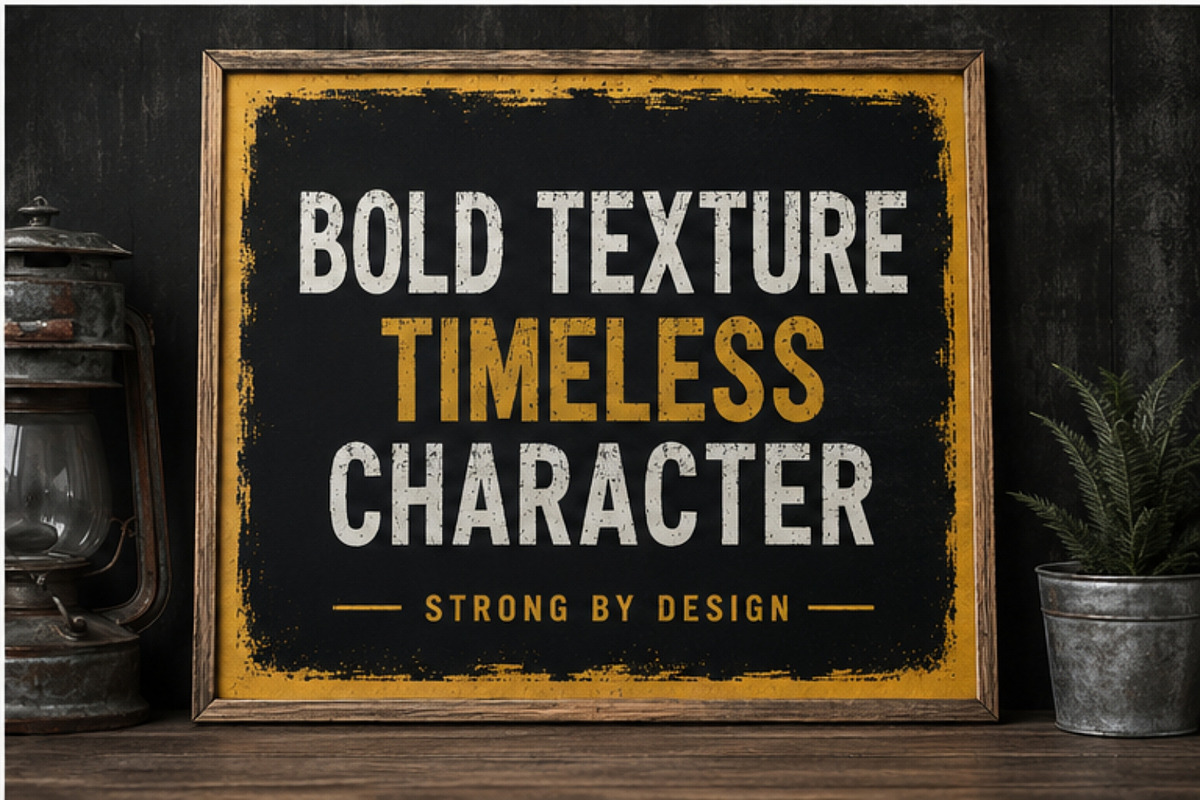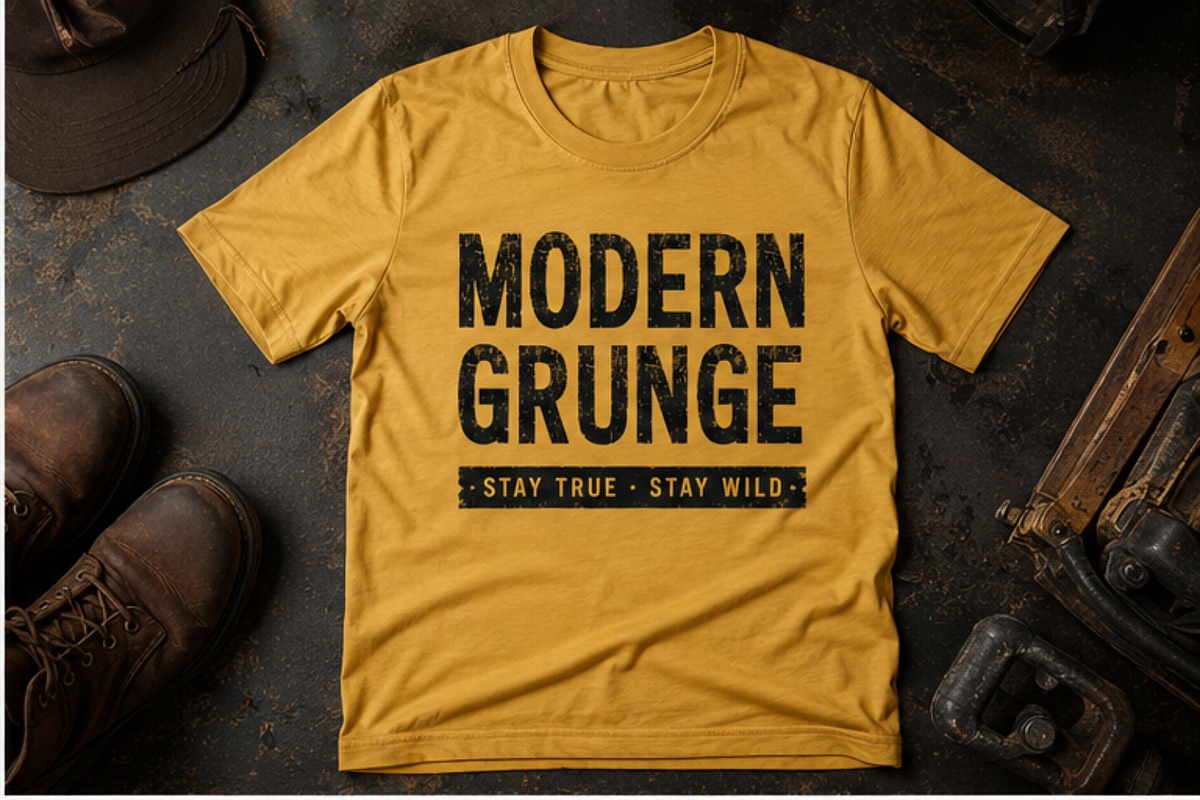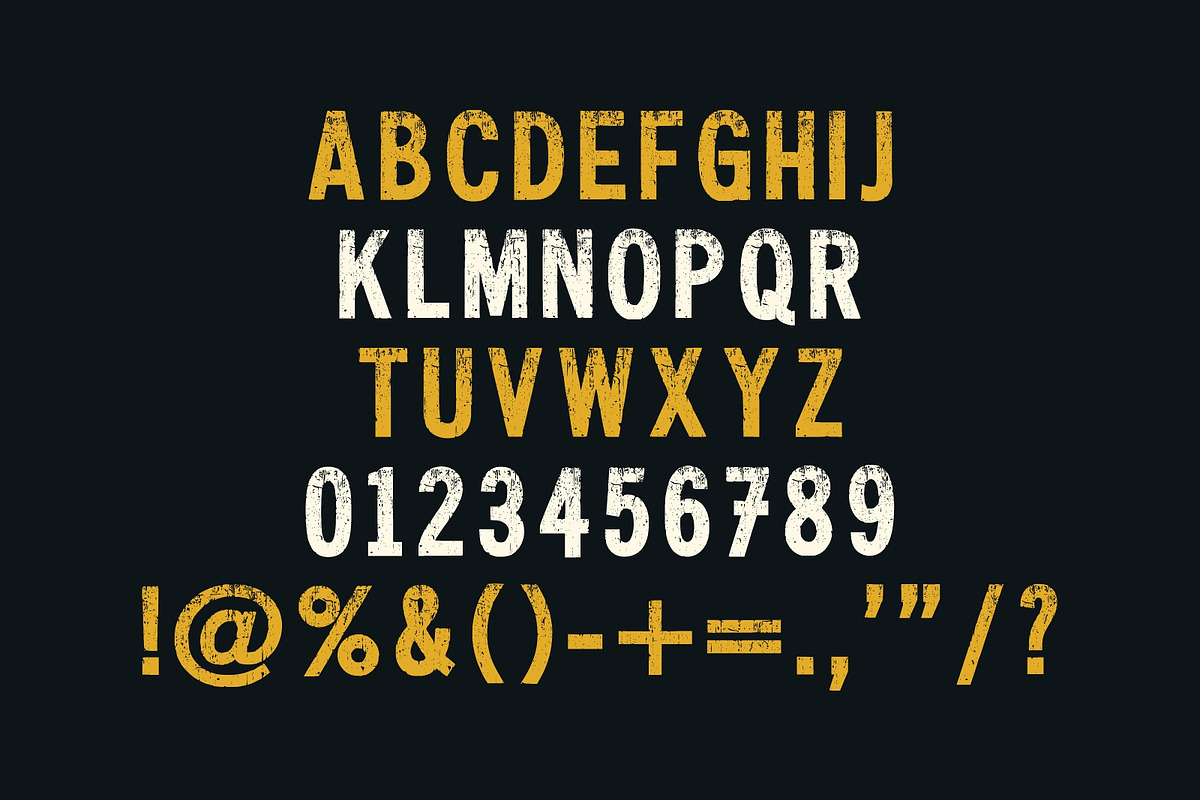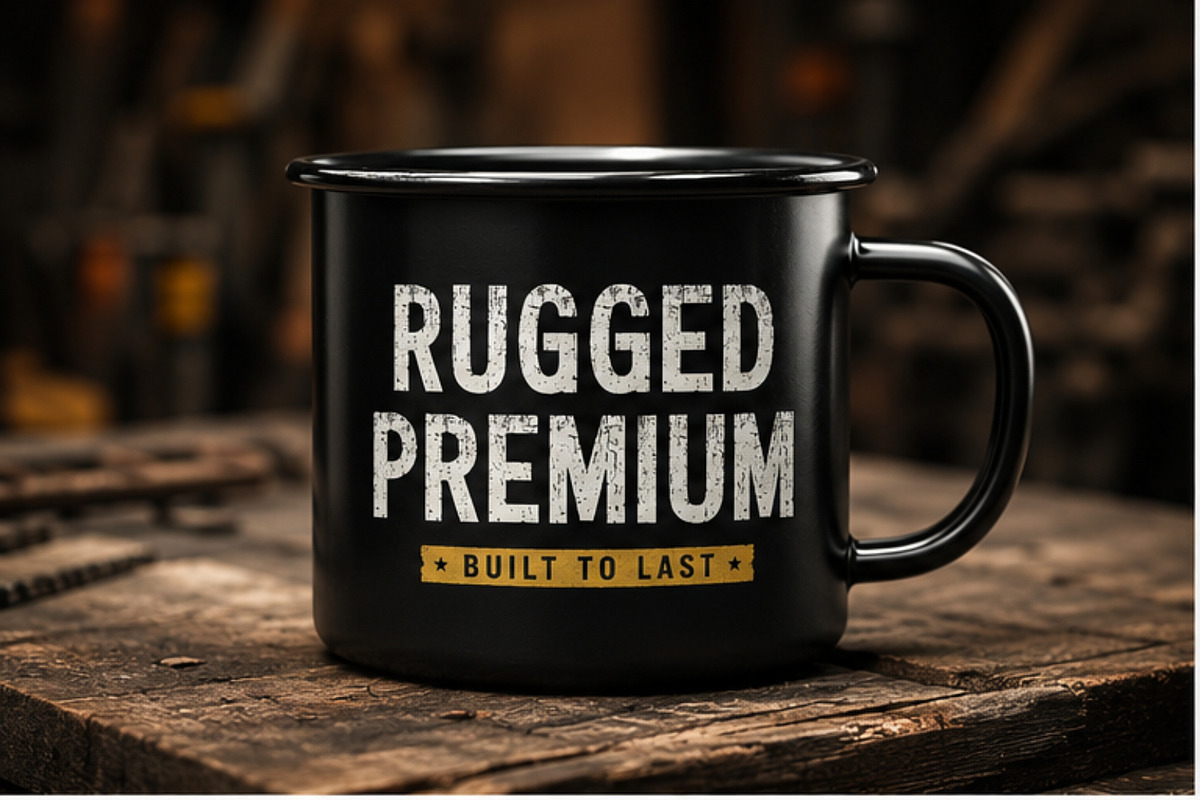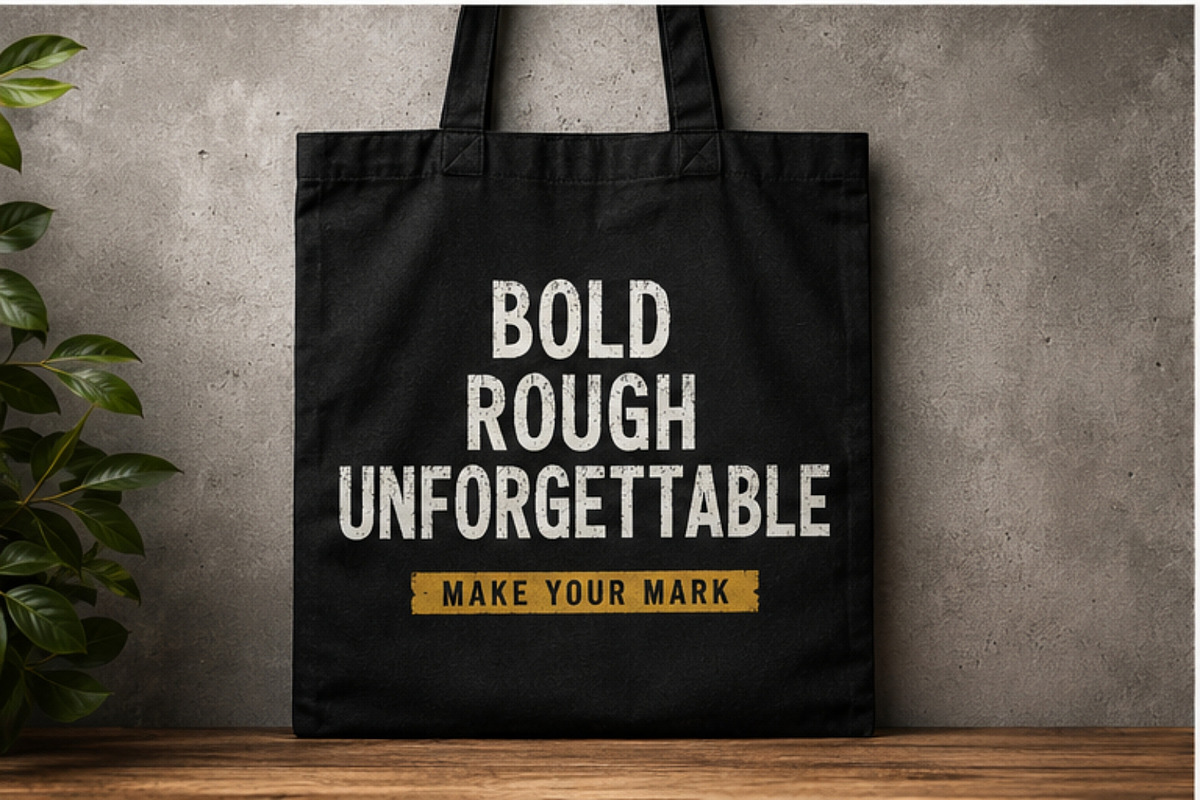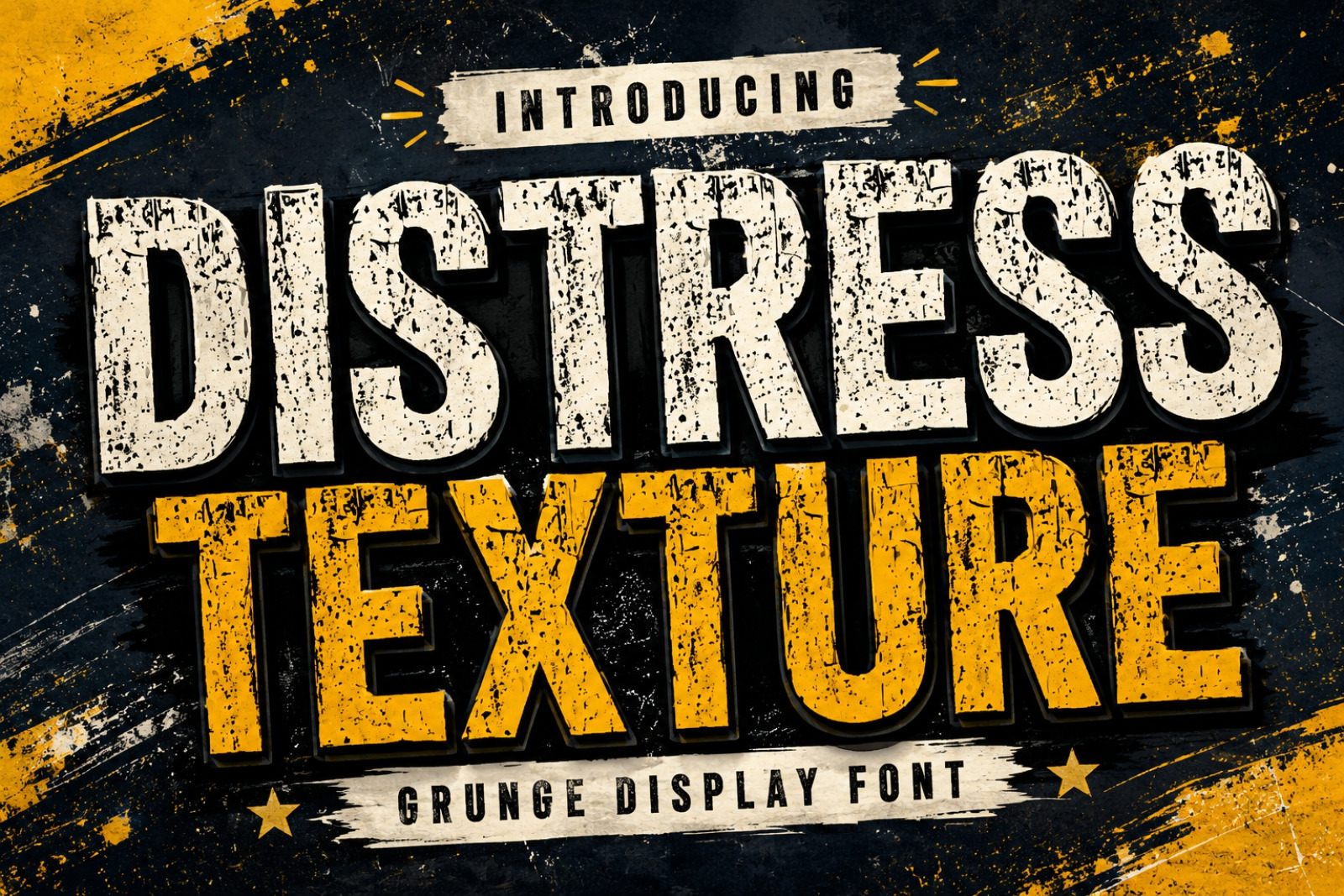
Distress Texture - Bold Grunge Font
Distress Texture is a bold grunge display font featuring an authentic distressed effect that gives every design a rugged, vintage personality. Its strong letterforms and worn texture make it ideal for projects that demand a raw, handcrafted aesthetic.
Perfect for branding, logos, posters, apparel, merchandise, packaging, labels, signage, album covers, social media graphics, stickers, and more. Whether you're creating retro, industrial, outdoor, or masculine-themed designs, Distress Texture delivers bold impact with timeless character.
Uppercase Letters